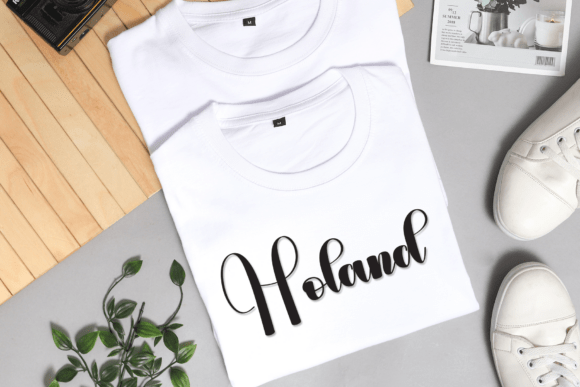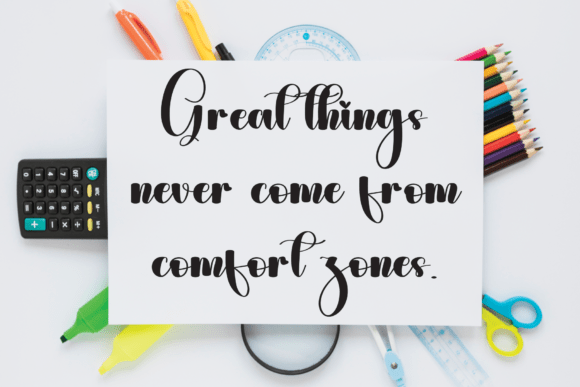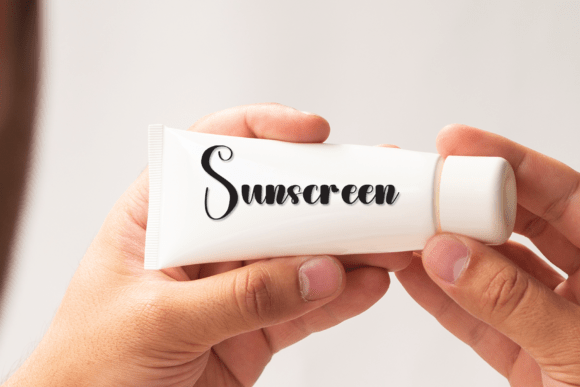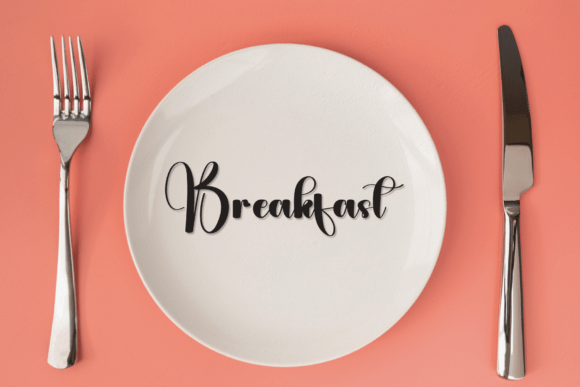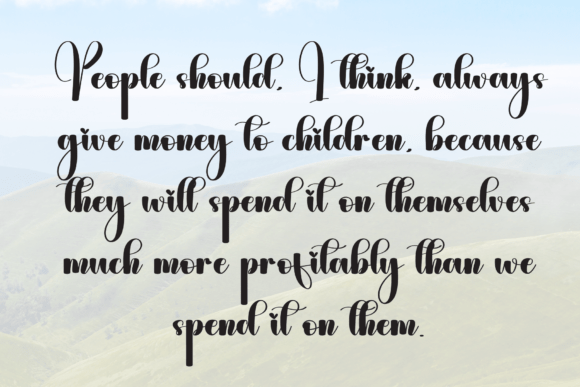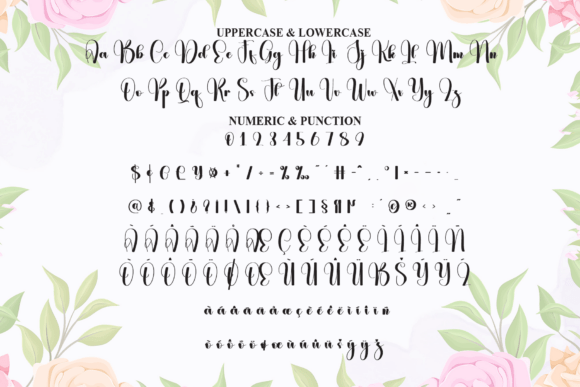
Meet Your New Best Friend: Barbie Font
Do you remember the moment when you stumbled upon the perfect font for your project? The one that made your design come alive with a dash of personality? For many of us, that moment is what makes all the difference between a good design and a great one.
Enter the ‘Sweet & Friendly’ display font, a handcrafted gem that’s sure to capture the hearts of your audience. Designed with love and care, this font is perfect for crafting wedding invitations, heartfelt cards, or any project that requires a playful touch. As a designer, you know how valuable a versatile font like this can be, adding a delightful splash of fun to your designs. With the Barbie Font, you’ll have the perfect tool to bring your creative vision to life and make your projects truly unforgettable.
Key Features of Barbie Font
- Unique Characteristics: Features a playful, cursive script with swashes and flourishes, making it ideal for feminine and creative designs
- Font Style: Available in regular and bold styles, with optional ligatures and swashes for added flair
Barbie Font Review
I recently had the chance to work with the Barbie Font, and I must say it’s a unique addition to any design project. ✨ The font’s playful, whimsical feel is perfect for projects that need a touch of fun and elegance.
The font’s versatility is one of its strongest assets. ✨ It can be used for a variety of purposes, from children’s books to fashion branding. The font’s flexibility in terms of size and color also makes it easy to adapt to different design contexts.
- Unique, whimsical feel
- Highly versatile
- Easy to customize
- May not be suitable for serious or formal projects
- Some characters may not be available in certain font sizes
- Can be overused if not paired with other fonts
- ⚠️ May not be suitable for projects with a large amount of text
Overall, I think the Barbie Font is a great choice for designers looking to add a touch of personality to their projects. While it may not be suitable for every project, its unique charm and versatility make it a valuable addition to any design toolkit.
The Barbie font is ideal for creating playful and feminine designs, making it perfect for:
- Children’s party invitations
- Girls’ birthday cards
- Wedding invitations
- Food labels and packaging
For the most effective use of the Barbie font, keep the following tips in mind:
- Use it sparingly to avoid overwhelming the design.
- Pair it with other playful fonts for a fun and eclectic look.